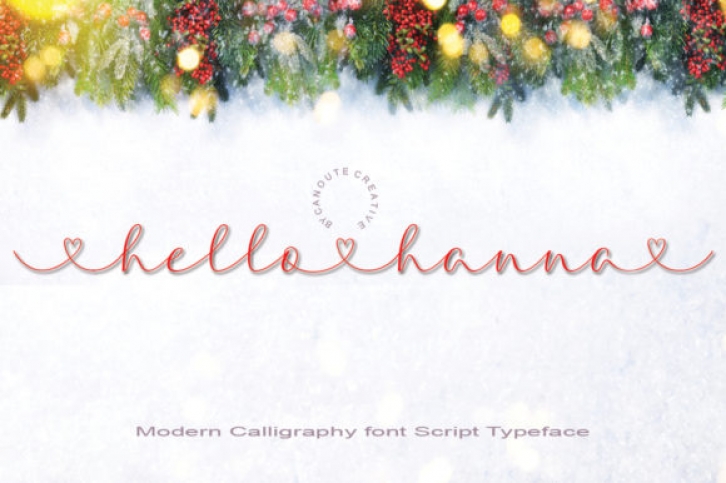
Hello Hanna is a romantic and sweet handwritten font. It looks stunning on wedding invitations, thank you cards, quotes, greeting cards, logos, business cards and every other design which needs a handwritten touch.